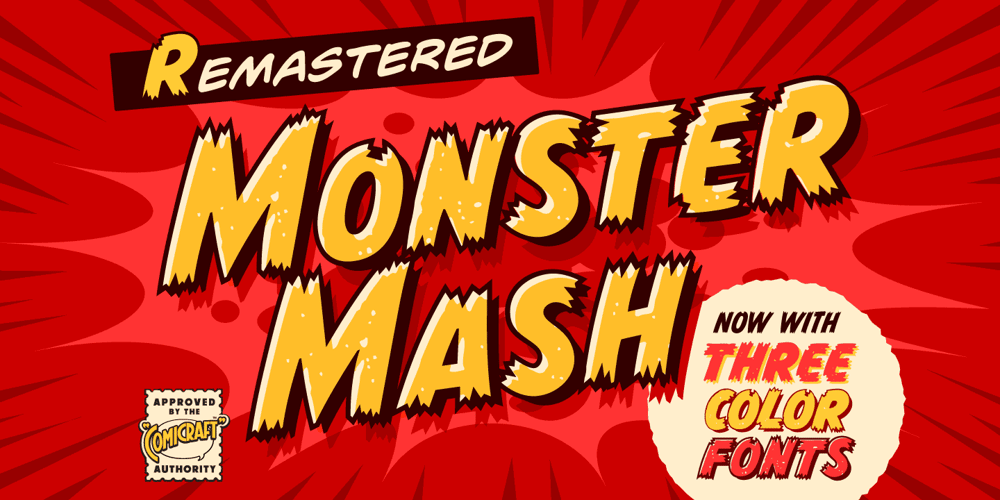
Monster Mash Font Family was designed by John Roshell and published by Comicraft. Monster Mash contains 6 styles and family package options. While working on our Macs late at night, Our Eyes beheld an Eerie Type. It’s called The Mash! It’s called MONSTER MASH!